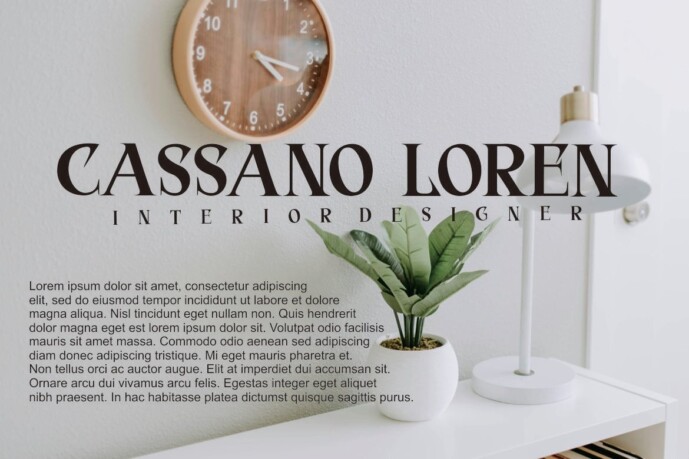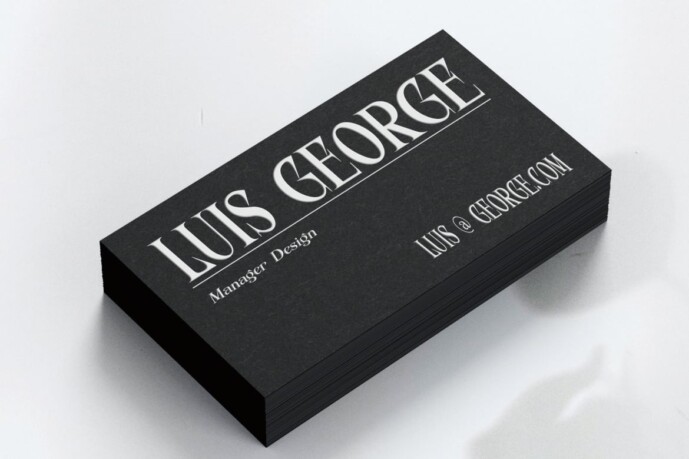
Fitasha Font
Designer: cozzdesign
Fitasha Font – Elegant Typeface Font is a bold and authentic display font. The font is suitable for any branding projects such as Logo, T-shirt printing, esports, etc. It looks outstanding in a wide range of contexts